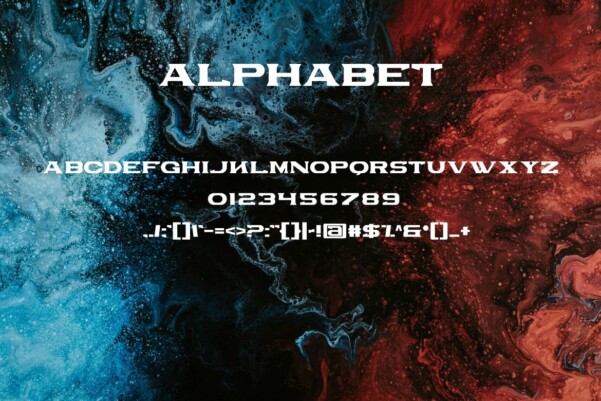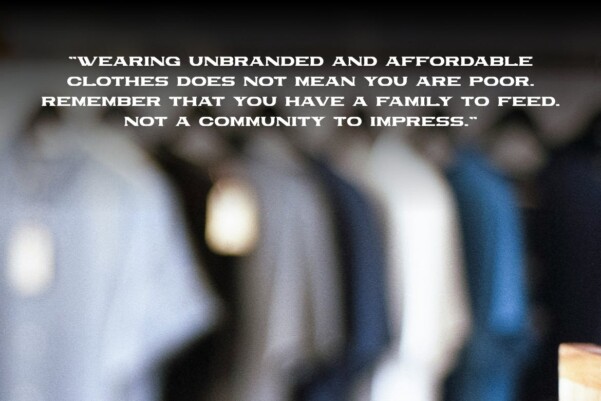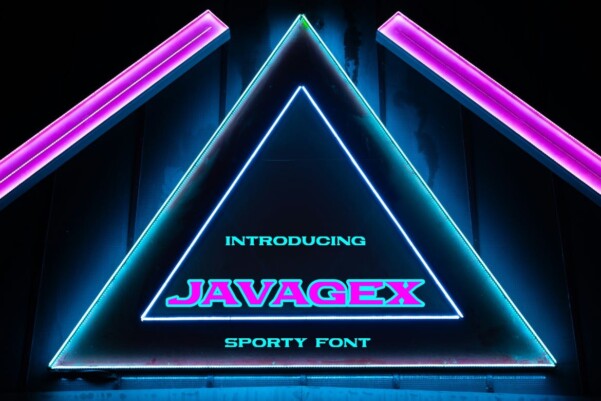
Javagex Font
Javagex Font, a font that embodies the dynamic spirit of modern automotive technology and the future of racing. With its sleek, futuristic design, this font is crafted for projects that demand a high-tech and contemporary aesthetic. Whether it’s automotive branding , racing events, or any design related to the cutting edge of the industry, ‘Javagex’ accelerates your typography with a bold and forward-looking style.